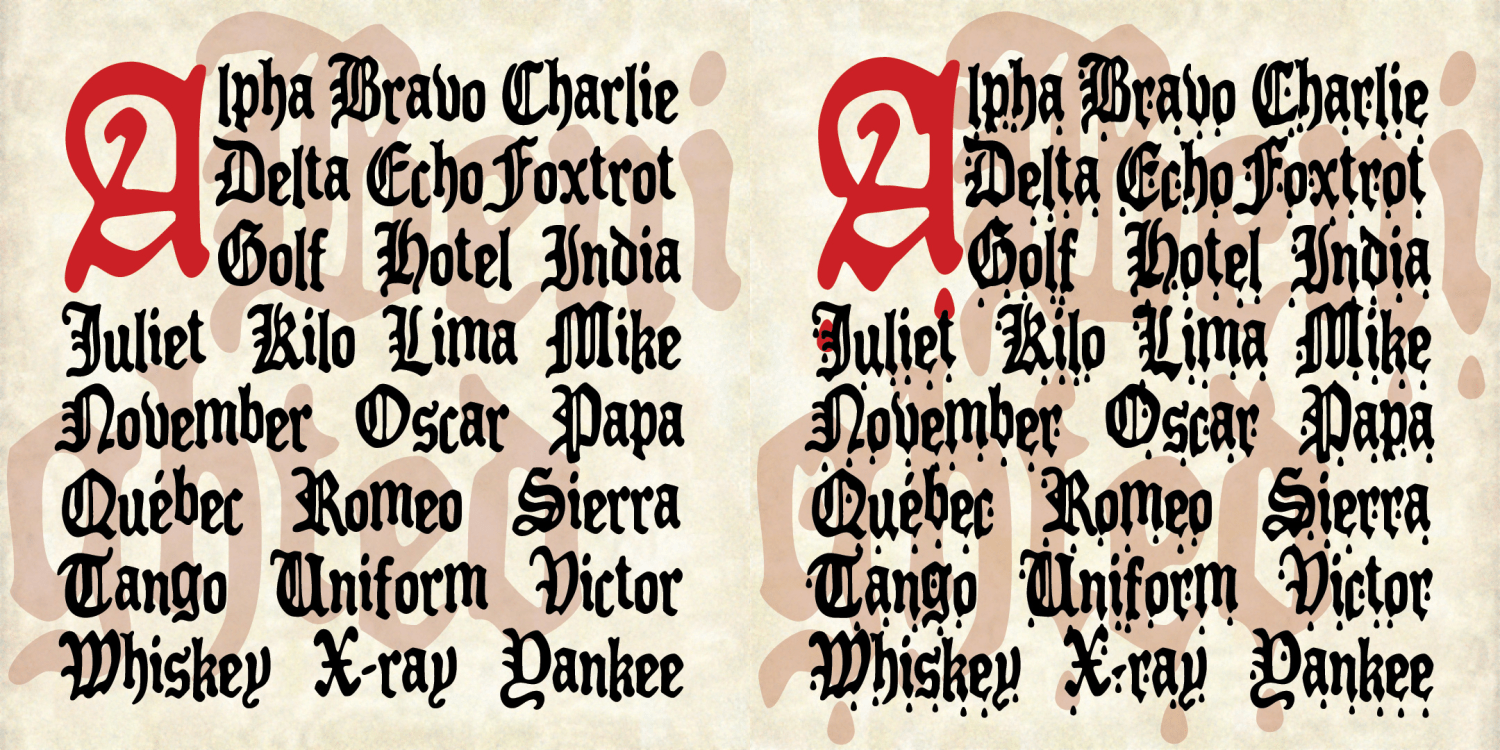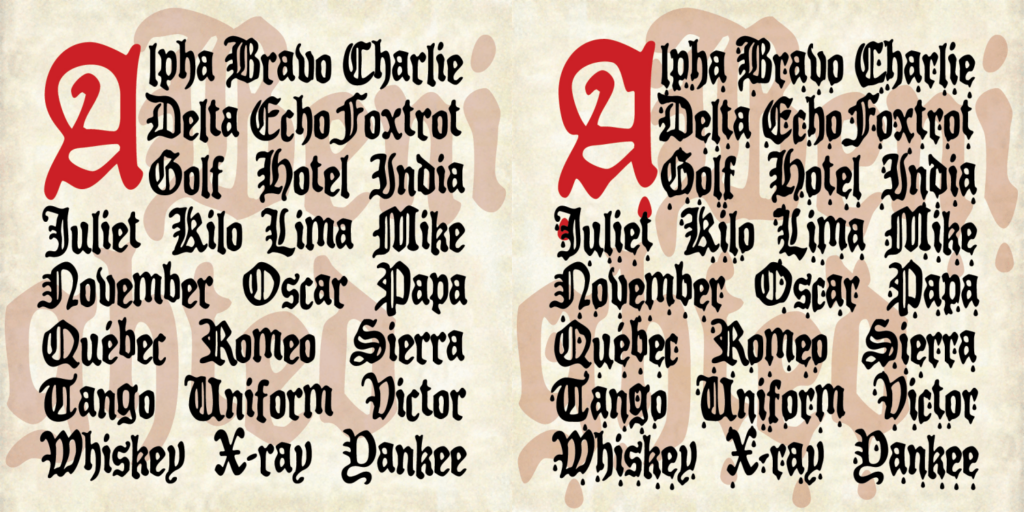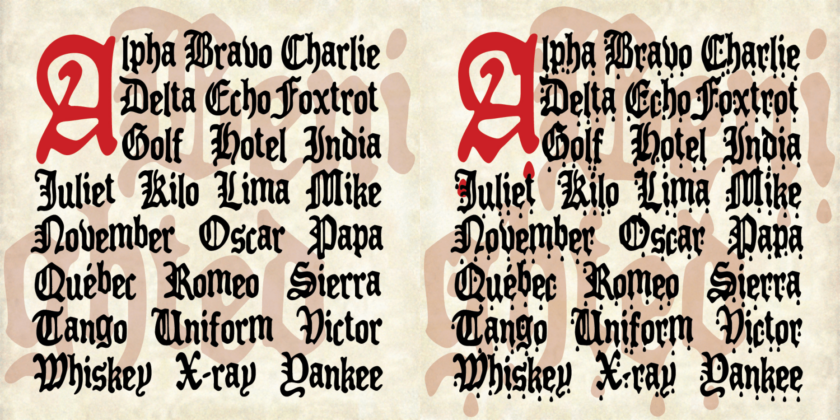
Benighted
About Benighted
BENIGHTED is my stab at a blackletter font that with a loose, hand-lettered feel, sort of an Old English Casual or Fraktur Frisky. I first drew all the letters with a Sharpie marker, ultimately creating a font with an irregular baseline and a creepy feel.…